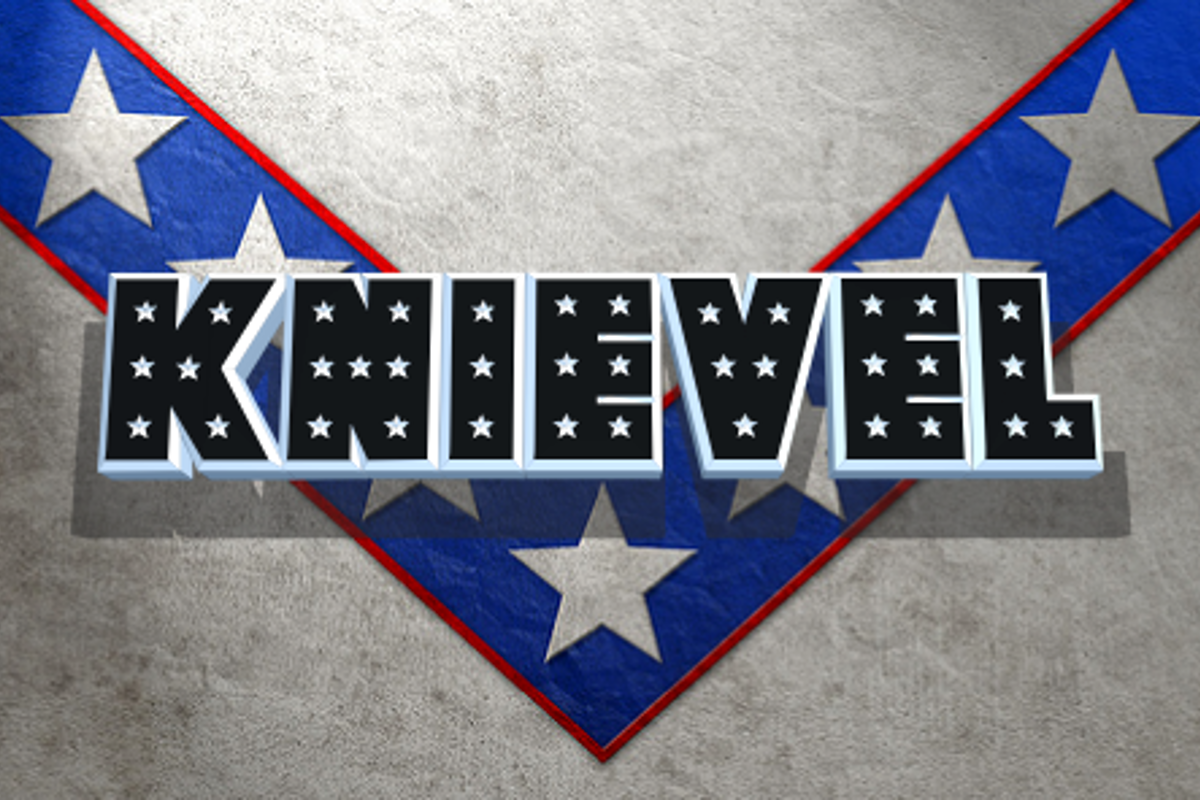
Evel Knievel Font . Using google web fonts, the best i came up with is as follows:. Knievel font was designed by iconian fonts and has been downloaded 19,054 times.
Knievel is a free font for personal use created by iconian fonts. Using google web fonts, the best i came up with is as follows:. Free download of knievel font family with 8 styles.
You can download the knievel font to your computer or use it on your. Knievel is a free font for personal use created by iconian fonts. I have been trying to find a font that best replicated evel knievel's logo. This font is perfect for creating vintage.
Evel Knievel Font - Knievel is a fancy type. Knievel font was designed by iconian fonts and has been downloaded 19,054 times. Using google web fonts, the best i came up with is as follows:. Download knievel font for windows and mac. Knievel is a free font for personal use created by iconian fonts.
Evel Knievel Font - Free download of knievel font family with 8 styles. Knievel font download is available free from fontget. I have been trying to find a font that best replicated evel knievel's logo. Knievel is a free font for personal use created by iconian fonts. Click now to create a custom image with your own words that you can download.
Evel Knievel Font - This font is perfect for creating vintage. I have been trying to find a font that best replicated evel knievel's logo. Knievel font family designed by daniel zadorozny has a total of 8 different styles. Knievel font download is available free from fontget. Knievel is a fancy type.
Evel Knievel Font - Knievel is a free font for personal use created by iconian fonts. You can download the knievel font to your computer or use it on your. This font is perfect for creating vintage. Knievel is a fancy type. I have been trying to find a font that best replicated evel knievel's logo.
Evel Knievel Font - Knievel font was designed by iconian fonts and has been downloaded 19,054 times. Free download of knievel font family with 8 styles. Knievel is a fancy type. Knievel is a free font for personal use created by iconian fonts. This font is perfect for creating vintage.
Evel Knievel Font - Using google web fonts, the best i came up with is as follows:. Click now to create a custom image with your own words that you can download. Knievel is a free font for personal use created by iconian fonts. Knievel font download is available free from fontget. I have been trying to find a font that best replicated evel.
Evel Knievel Font - Knievel font download is available free from fontget. This font is perfect for creating vintage. Knievel font family designed by daniel zadorozny has a total of 8 different styles. Using google web fonts, the best i came up with is as follows:. Free download of knievel font family with 8 styles.
Evel Knievel Font - Knievel font was designed by iconian fonts and has been downloaded 19,054 times. Click now to create a custom image with your own words that you can download. I have been trying to find a font that best replicated evel knievel's logo. Knievel is a free font for personal use created by iconian fonts. Knievel font download is available free.
Evel Knievel Font - Knievel is a free font for personal use created by iconian fonts. Knievel font was designed by iconian fonts and has been downloaded 19,054 times. Using google web fonts, the best i came up with is as follows:. Free download of knievel font family with 8 styles. I have been trying to find a font that best replicated evel knievel's.
Evel Knievel Font - Knievel is a free font for personal use created by iconian fonts. This font is perfect for creating vintage. Knievel font family designed by daniel zadorozny has a total of 8 different styles. You can download the knievel font to your computer or use it on your. Download knievel font for windows and mac.
Evel Knievel Font - Knievel font was designed by iconian fonts and has been downloaded 19,054 times. Using google web fonts, the best i came up with is as follows:. Knievel is a free font for personal use created by iconian fonts. Knievel font family designed by daniel zadorozny has a total of 8 different styles. Knievel font download is available free from fontget.
Evel Knievel Font - Knievel font family designed by daniel zadorozny has a total of 8 different styles. You can download the knievel font to your computer or use it on your. Knievel font was designed by iconian fonts and has been downloaded 19,054 times. This font is perfect for creating vintage. Using google web fonts, the best i came up with is as.
Evel Knievel Font - Knievel font download is available free from fontget. Knievel font family designed by daniel zadorozny has a total of 8 different styles. You can download the knievel font to your computer or use it on your. Free download of knievel font family with 8 styles. This font is perfect for creating vintage.
Evel Knievel Font - Click now to create a custom image with your own words that you can download. Download knievel font for windows and mac. Free download of knievel font family with 8 styles. Knievel font was designed by iconian fonts and has been downloaded 19,054 times. Knievel font family designed by daniel zadorozny has a total of 8 different styles.